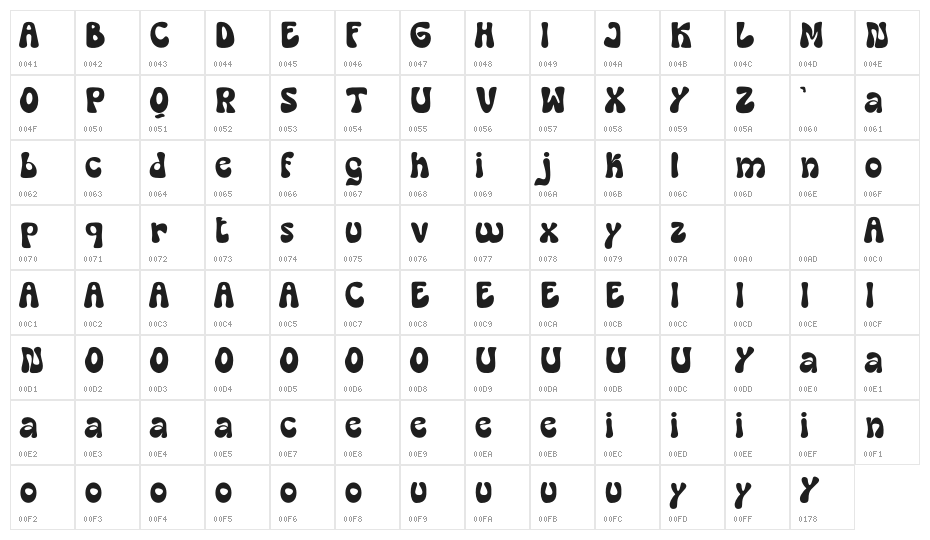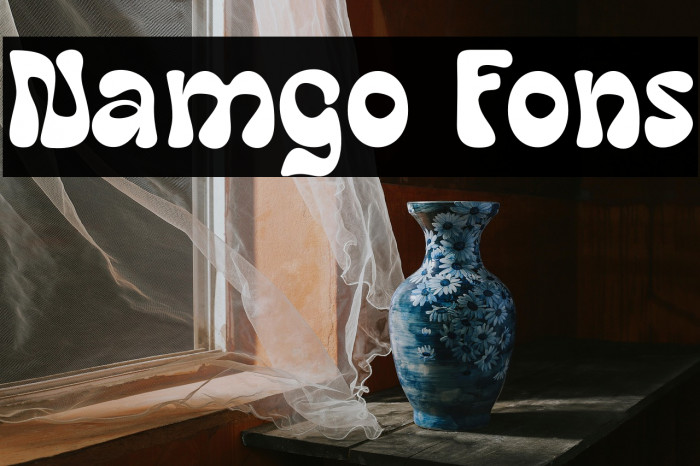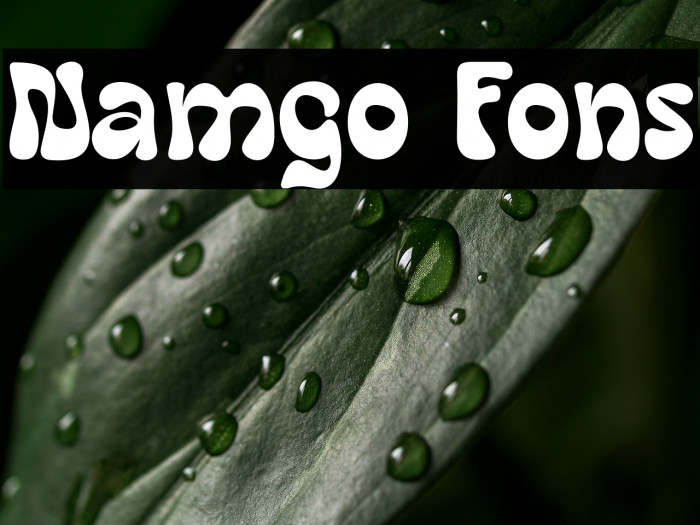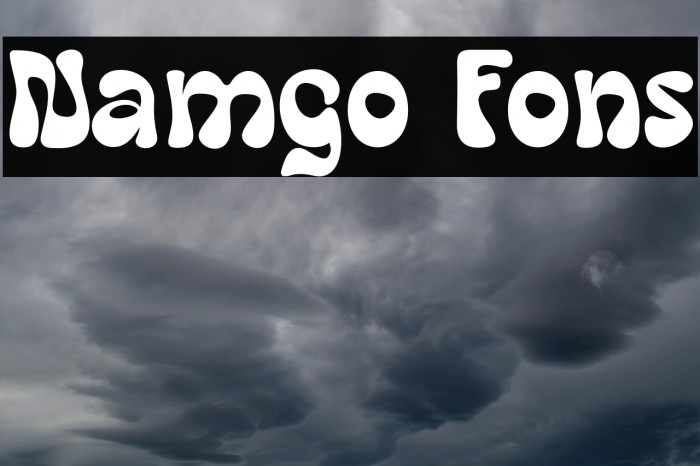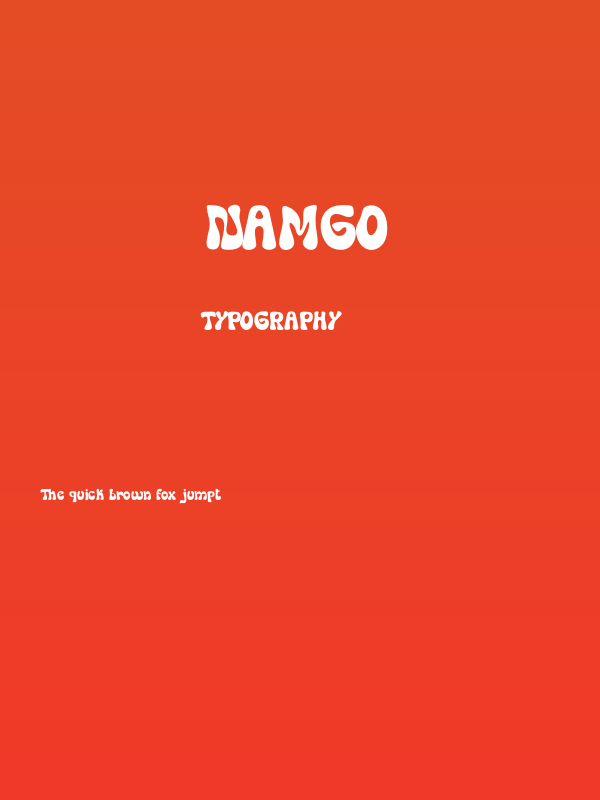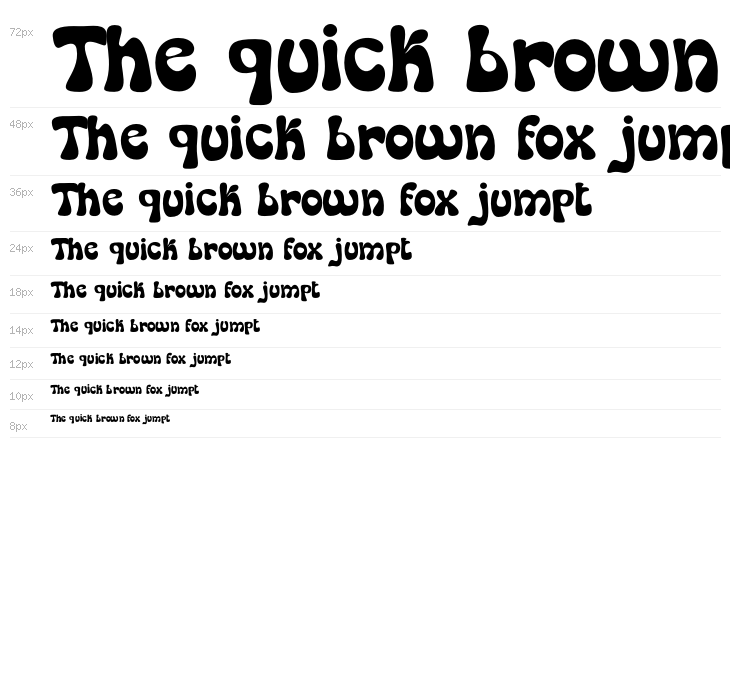
Namgo Font
Namgo Description
This font features a playful and bold design with a distinctly organic feel. The characters are rounded and have a whimsical, almost cartoonish appearance, making them stand out with their unique, bubbly forms. The strokes are thick and consistent, giving the font a strong presence. The overall style is informal and fun, suitable for creative and lighthearted projects. The lack of sharp edges and the smooth curves contribute to its friendly and approachable look.
Overall StylePlayful
Use CaseLogos, Posters, Headlines
Proposed ProjectsIdeal for children's books, playful branding, party invitations, and creative posters.